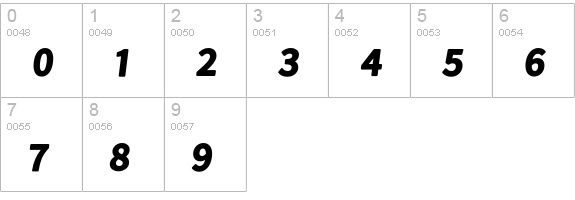
Falling Sky Black Oblique Font Details
Falling Sky Black Oblique is a maximum-weight, dramatic, italic variant in the Falling typeface family \xE2\x80\x94 well suited to maximum-impact headlines, posters, and packaging.
Falling Sky Black Oblique is a bold and striking font that commands attention with its unique and edgy design. This font is perfect for adding a touch of modernity and sophistication to any project, whether it's a logo, headline, or website design. With its sleek and slanted letterforms, Falling Sky Black Oblique exudes a sense of dynamism and energy. Its bold strokes and sharp angles give it a strong and commanding presence, making it an ideal choice for creating eye-catching and impactful designs. One of the best features of Falling Sky Black Oblique is that it is available for free. Yes, you read that right! This incredible font can be downloaded at absolutely no cost from FontsMarket.com. Whether you're a professional designer or a hobbyist, this free font is a fantastic resource to have in your arsenal. Not only does Falling Sky Black Oblique offer a visually stunning appearance, but it also provides excellent legibility, even at smaller sizes. Its carefully crafted letterforms ensure that your text remains clear and readable, no matter the context. Whether you're working on a branding project, a poster, or a social media graphic, Falling Sky Black Oblique has the versatility to adapt to any design need. Its bold and modern aesthetic will elevate your creations and make them stand out from the crowd. So why wait? Head over to FontsMarket.com and download Falling Sky Black Oblique for free today. Unleash your creativity and transform your designs with this incredible font. Don't miss out on the opportunity to add a touch of boldness and style to your next project.